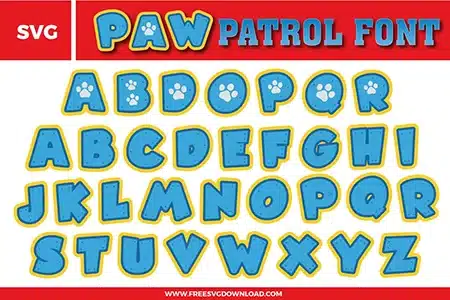
Paw Patrol Font Free SVG File
A playful and bold Paw Patrol Font free svg files set. The design features chunky, rounded light blue characters with a distinct yellow outline. Several letters include a white paw print emblem in the center. This SVG alphabet bundle includes a full set of uppercase letters in a fun, heroic comic style perfect for children's birthday crafts.
• Paw Patrol Font SVG: Full uppercase alphabet set in chunky rounded block letters, styled with blue fills, yellow outlines, and paw-print details inside selected characters to match a playful rescue-themed look.
How do I manage multi-layered weeding for this blue and yellow font?
Since this font features a yellow outline and a blue fill, weed the blue letters and the yellow background layers separately. To ensure perfect alignment, leave the ‘registration marks’ (small squares) in the corners of both layers. This allows you to stack the vinyl precisely before applying it to your final surface.
To make the yellow outline even bolder for visibility on dark shirts, select the blue letter and apply a 0.10-inch external offset. This creates a new, wider path that acts as a solid base. Layering the original blue letter on top of this new offset ensures a clean, professional ‘sticker’ look.
The tiny paw print pads inside the letters are delicate. Use a sharp weeding tool and light pressure. If the small white pieces lift, try the ‘Reverse Weeding’ method: apply your transfer tape first, then pull the backing away, and weed the negative space while the tiny details are held firm by the tape.
For standard Oracal 651, use the ‘Vinyl’ setting with ‘Default’ pressure. If your blade is slightly used, toggle to ‘More’ pressure. Because this font has rounded corners rather than sharp points, you can keep the cutting speed at a medium-high level without risking the vinyl bunching up.
If you are overlapping letters to fit a name onto a small water bottle, use the Weld tool to combine the blue fill layers into one single piece. This prevents the machine from cutting the overlapping ‘tails’ of the letters, which would create weak spots and visible lines in your finished decal.